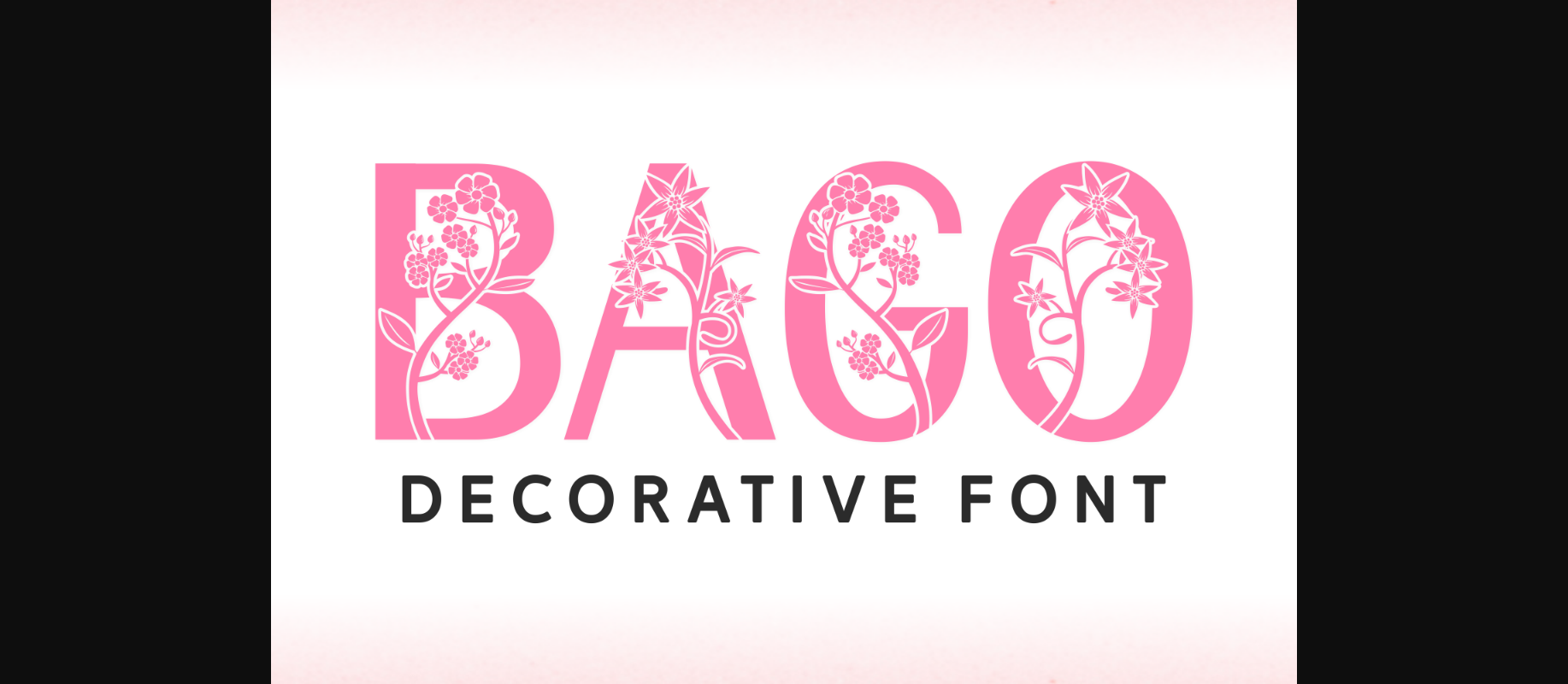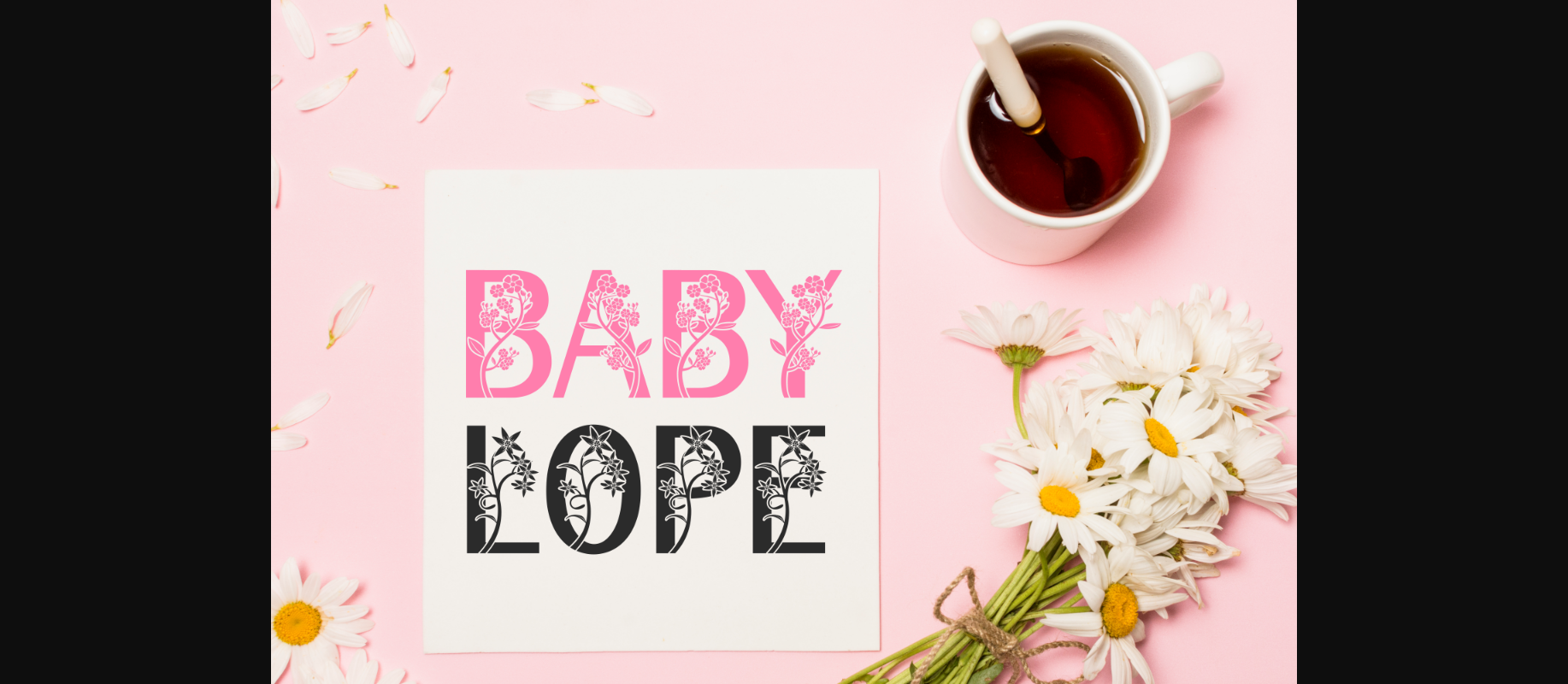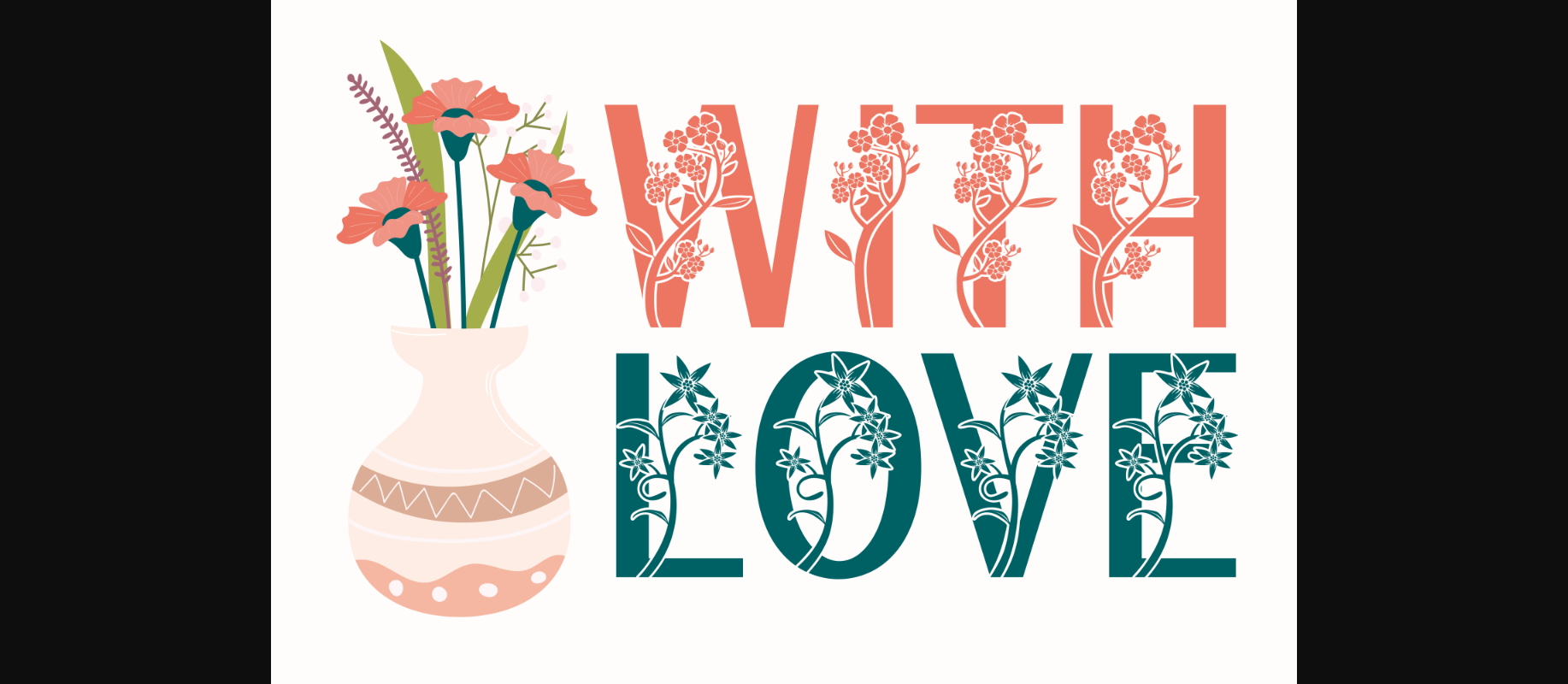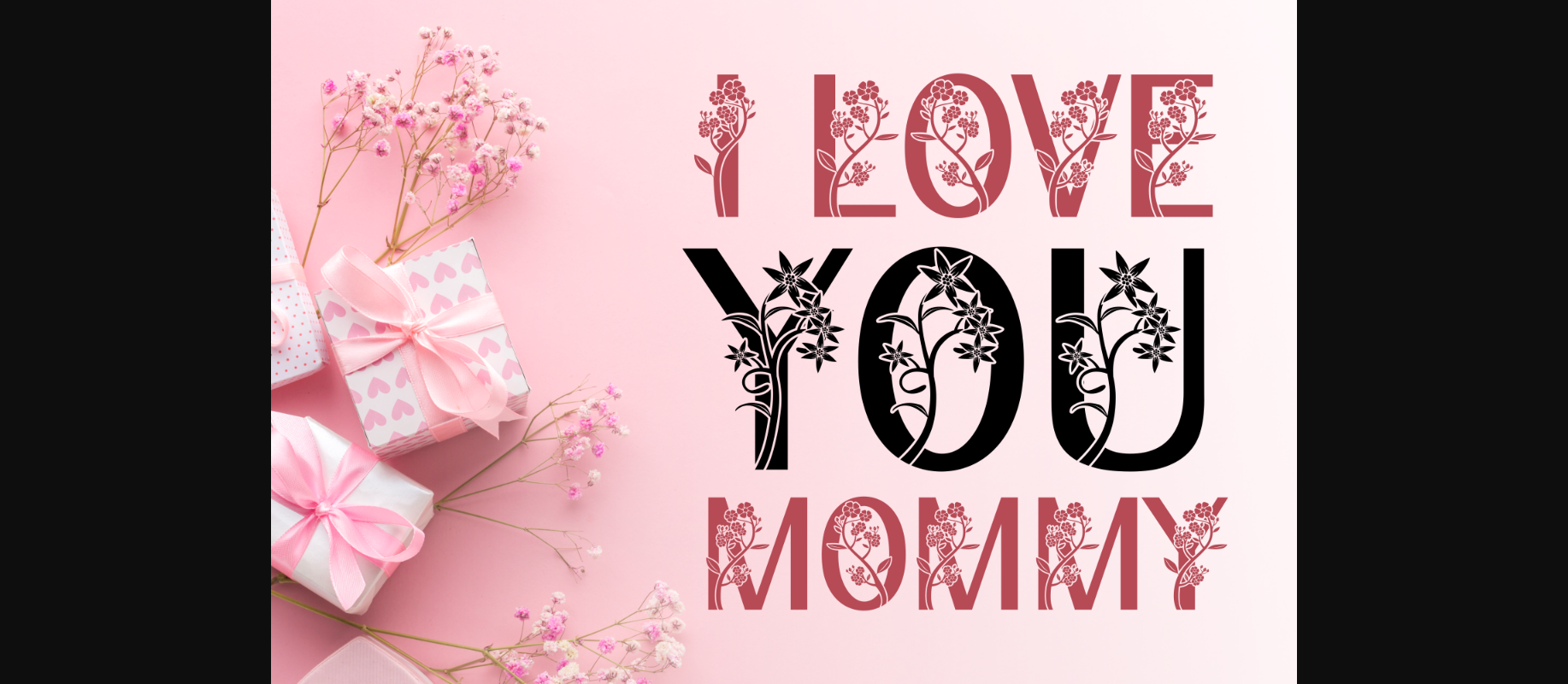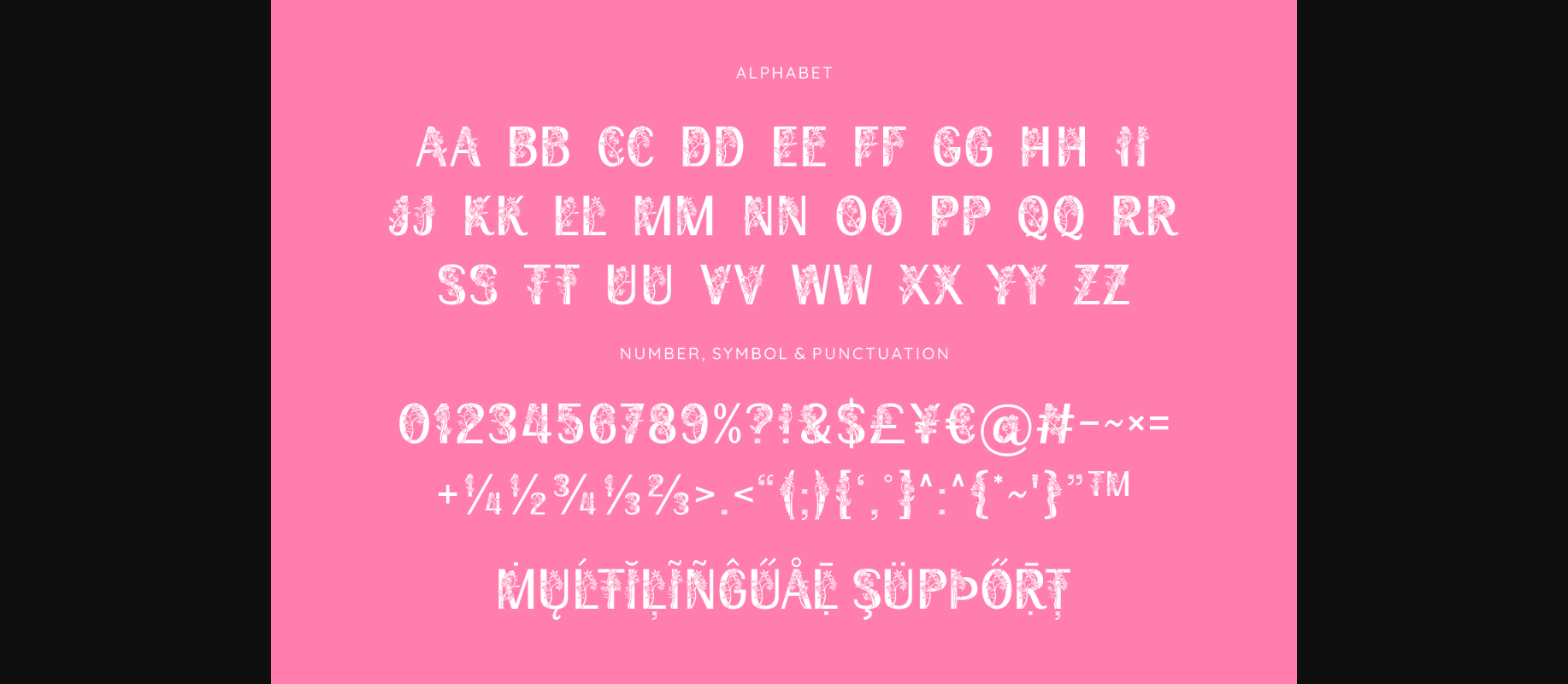
Bago is a fresh and creative decorative font perfect for projects that need to stand out! Use it on banners, covers, wedding designs, thank you notes, birthday cards, or anything that needs a personalized look.